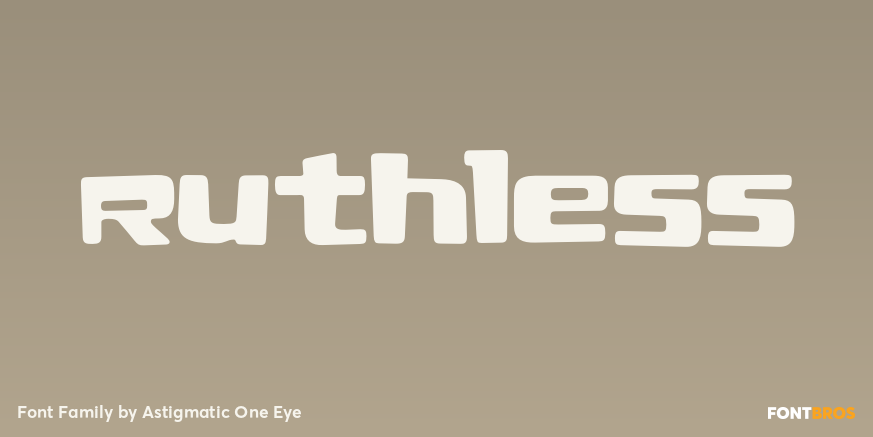
HomeFunWackyRuthless Wacky Ruthless FacebookXPinterestWhatsApp 1 of 1 About Ruthless A plush and heavy unicase font.  DOWNLOAD ON FONT BROSThis font is sold and delivered by Font Bros. Font Canyon may earn a commission if you buy through this link. People also explored Jillfester Font Booth Font Rossalyne Font Beauty Mermaid Font Tympanic Font Worship Font Mistake Font Coffee Mug Mock Up Music Stock Photo Cup Osande Txt Font 315 0 TagsRuthless Font Previous articleCavemanNext articleBoxley LEAVE A REPLY Cancel reply Comment: Please enter your comment! Name:* Please enter your name here Email:* You have entered an incorrect email address! Please enter your email address here Website: Save my name, email, and website in this browser for the next time I comment. Personal Use Free Legacy Personal Use Free Read more about this font Stone Cold Personal Use Free Read more about this font Thruster Personal Use Free Read more about this font Kumadinya Personal Use Free Read more about this font BLOG Top 10 Handwritten Fonts That Elevate Your Designs Top 10 Handwritten Fonts That Will Elevate Your Designs Handwritten fonts bring a warm, personal touch to every creative project. Whether you're designing logos, invitations,... To increase your work productivity, choose the most readable fonts. Elegant Wedding Invitation Fonts – Handwritten & Script Fonts Free Fonts Risk: Why Free Fonts Can Be Dangerous for Designers